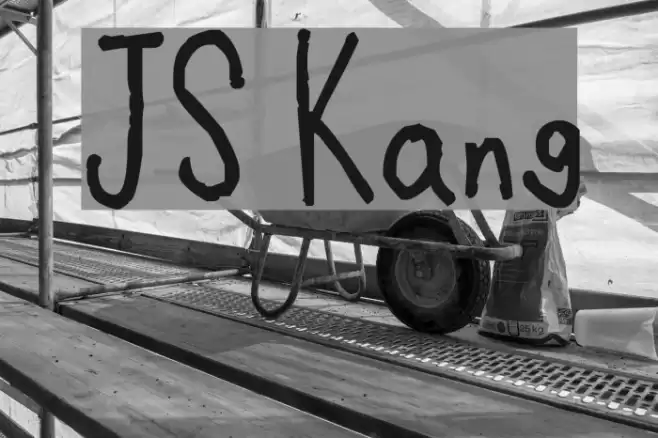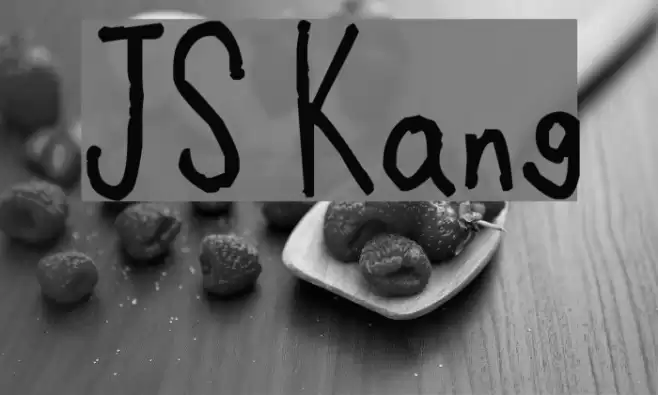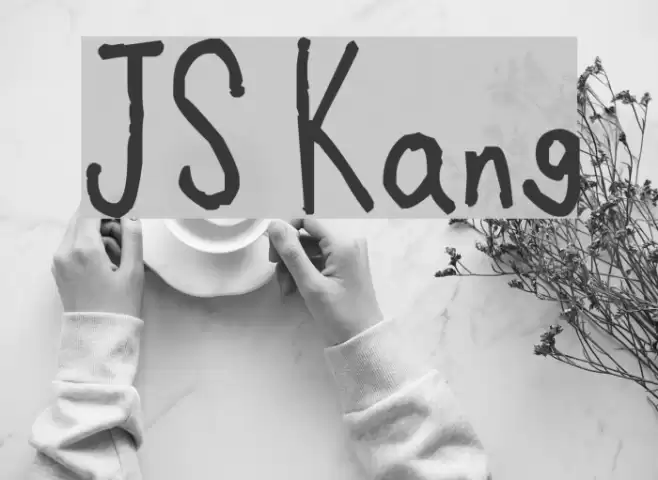
JS Kang Font
JS Kang Description
This font features a playful and hand-drawn aesthetic, characterized by its uneven strokes and casual appearance. The letters have a whimsical quality, with varying thickness and a slightly irregular baseline, giving it a lively and informal feel. The uppercase and lowercase letters maintain a consistent style, with rounded edges and a sense of spontaneity. Numbers and special characters follow the same playful design, adding to the font's cohesive look. This font is ideal for projects that require a personal touch or a creative flair.
A playful, hand-drawn font with uneven strokes and a casual, whimsical style from Uncategorized fonts.
- Proposed Projects: Ideal for children's books, creative posters, casual branding, and playful invitations.
- Use Case: Headlines, Logos, Invitations